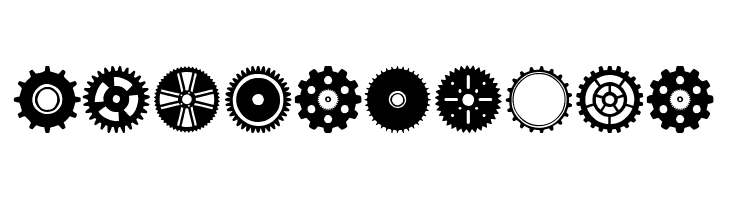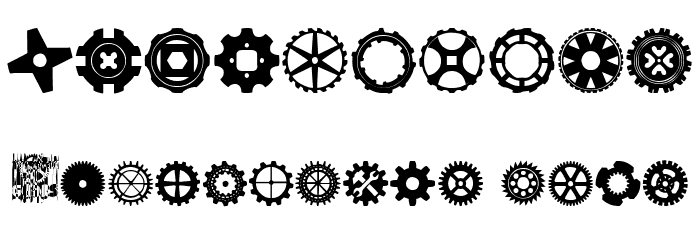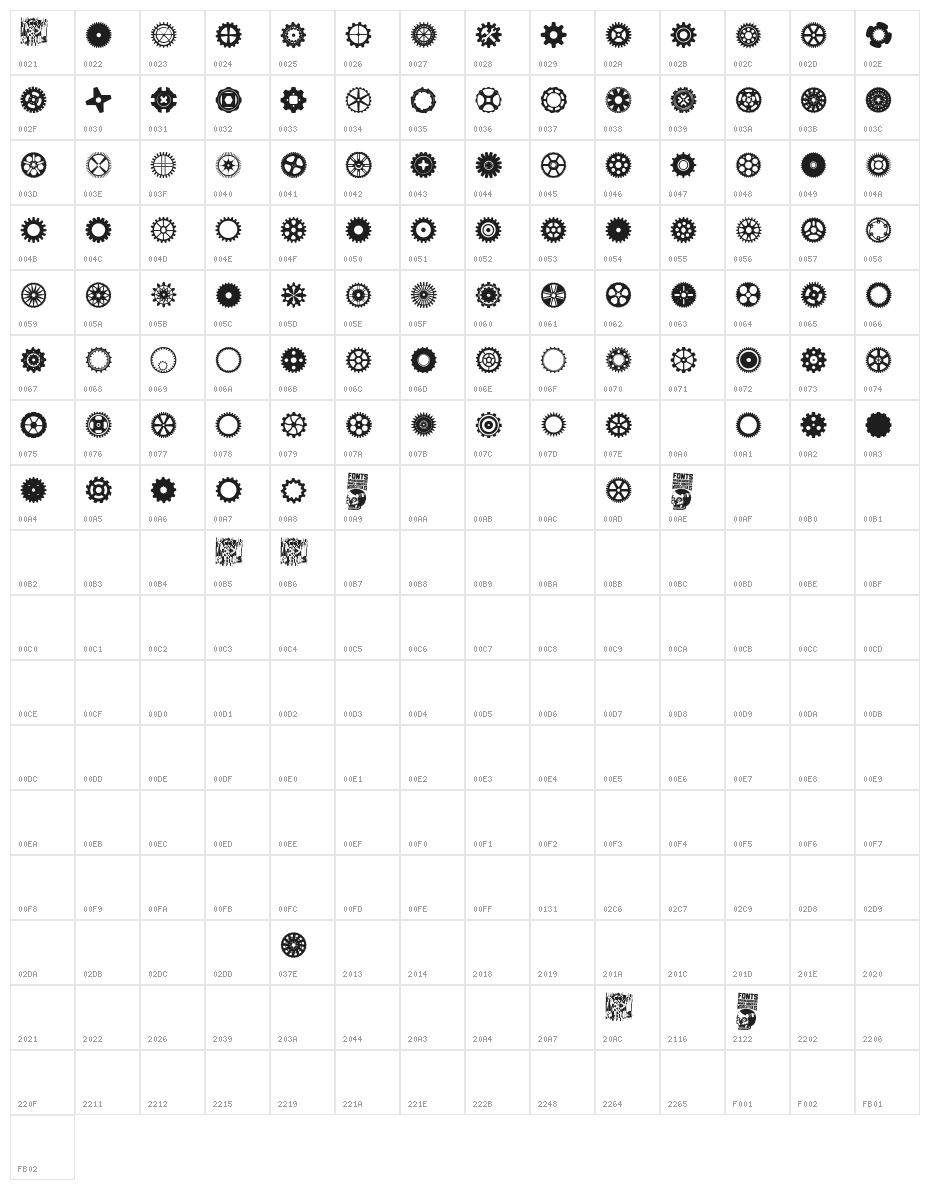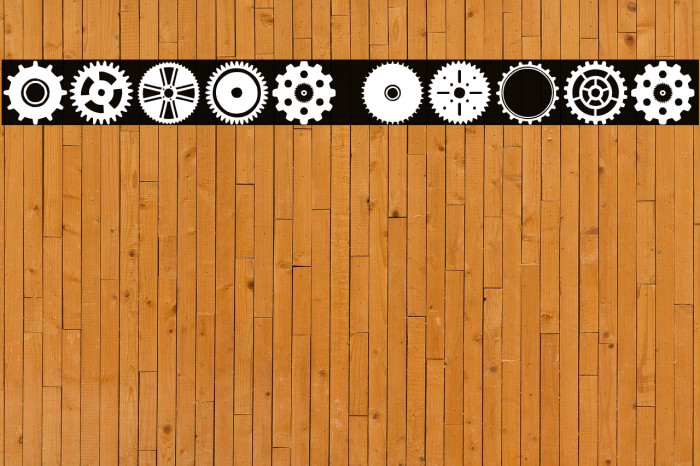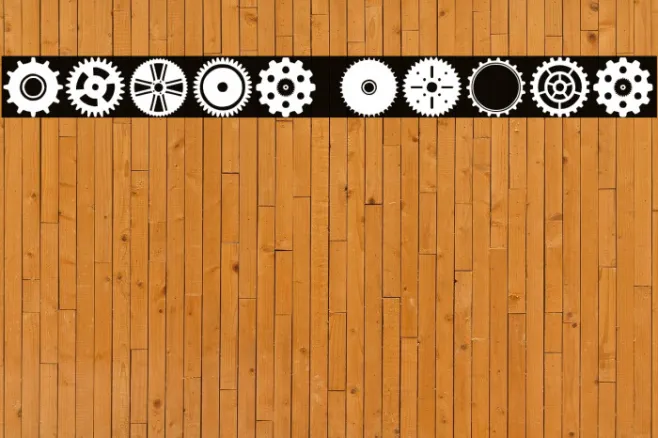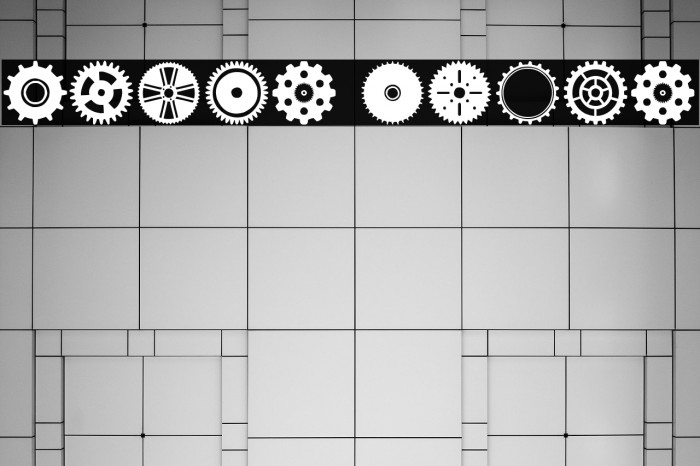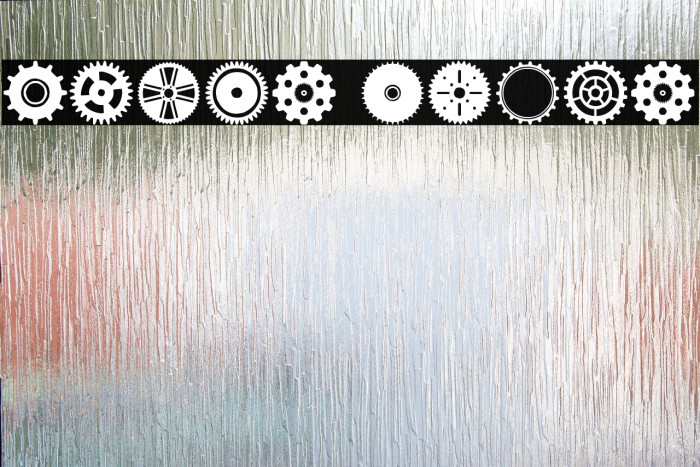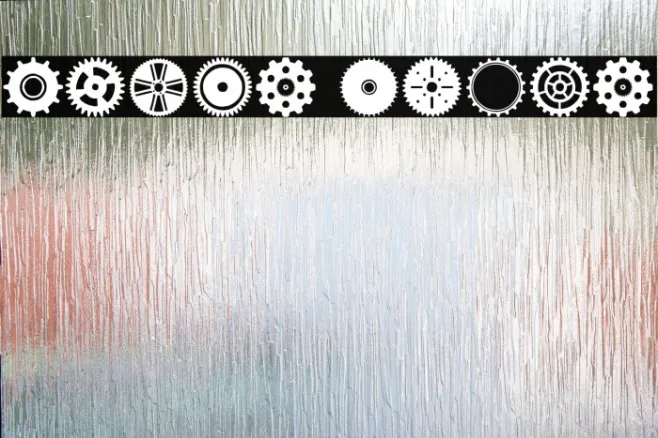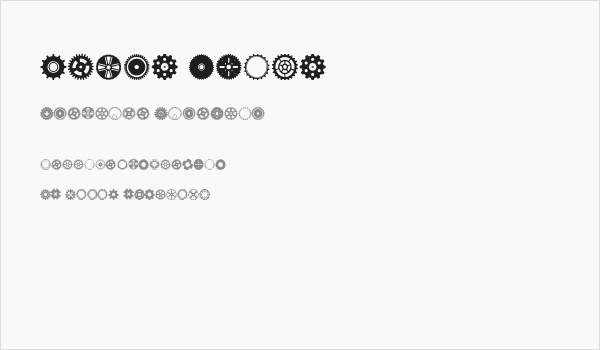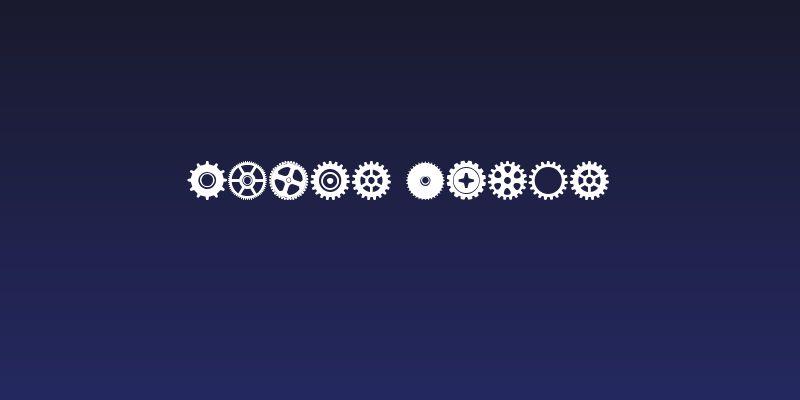
Gears Icons Font
Gears Icons Description
A collection of black gear and cogwheel icons in various shapes and styles, featuring both solid and outlined designs with different numbers of spokes and teeth. The icons are uniformly bold and have a mechanical, industrial appearance, suitable for representing machinery or engineering concepts.
| Overall Style | Industrial, Mechanical, Decorative |
| Use Case | Icons, Logos, Decorative elements |
| Proposed Projects | Infographics, engineering diagrams, app interfaces, steampunk designs, educational materials, branding for mechanical or tech companies. |